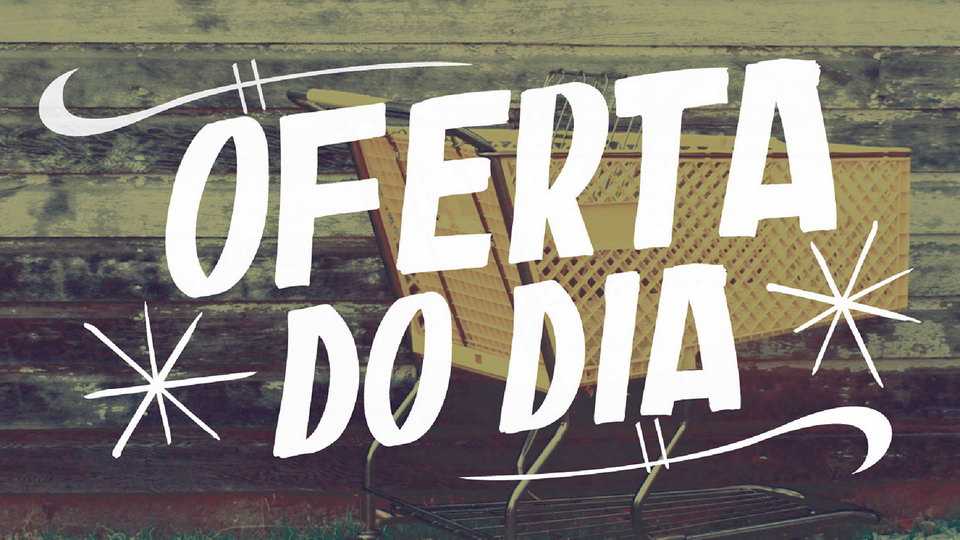
Download Oferta Do Dia font, a handwritten typeface inspired by supermarket posters. Oferta Do Dia font perfectly fits for posters, banners, headlines, packaging and merchandise, crafts and more.